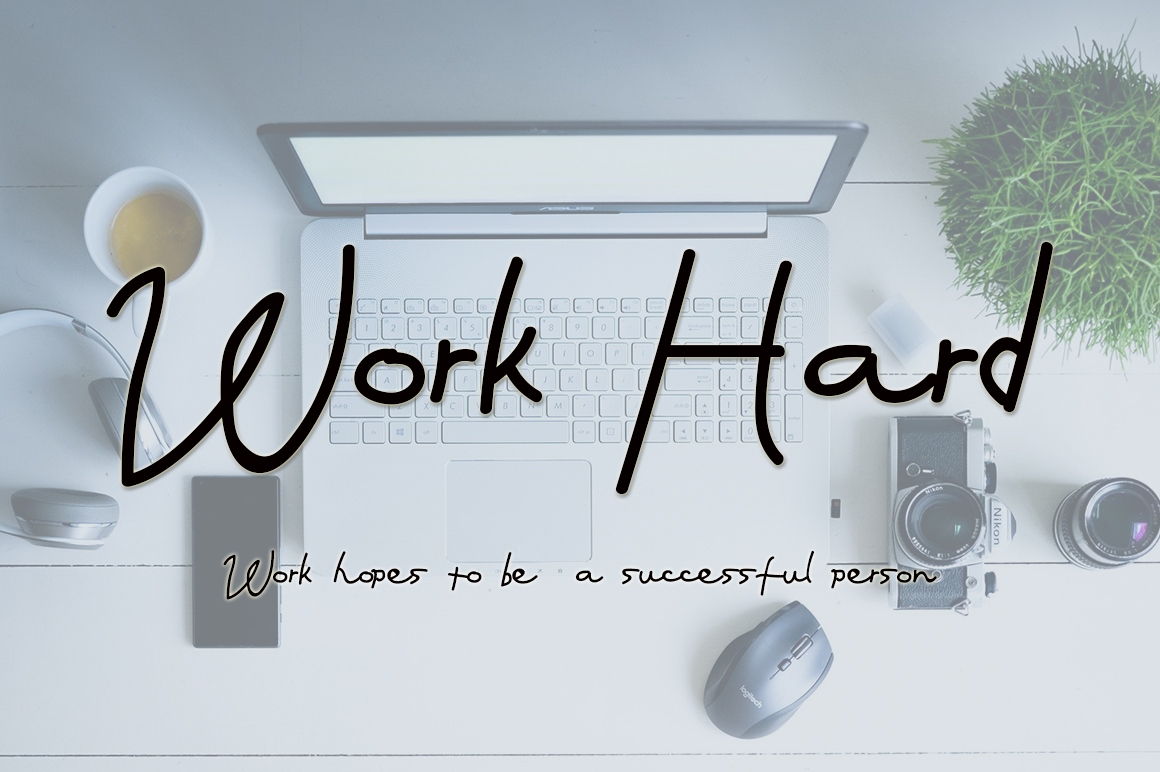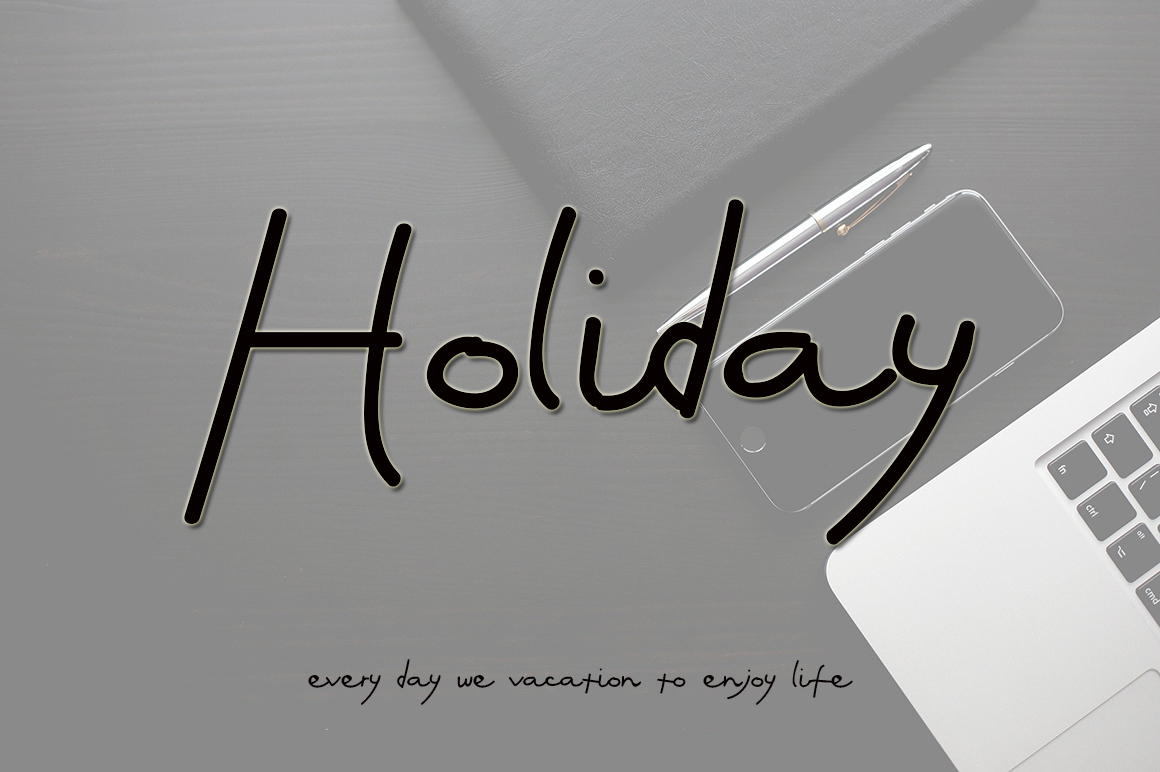
England Handwritten Font
It’s a simple and neat handwritten font. This versatile script font has a wide spectrum of applications ranging from greeting cards to headlines and is guaranteed to add a romantic feel to your next project.